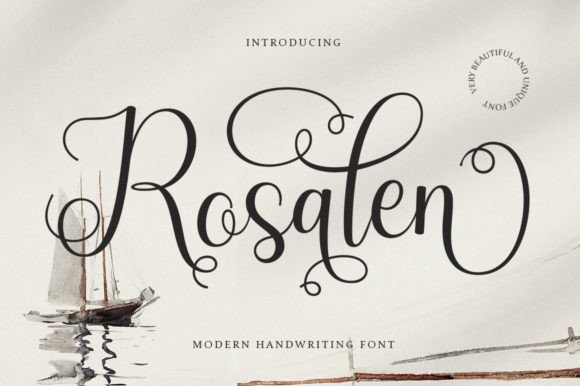
Feast your eyes on the mesmerizing Rosalen Script, a calligraphic masterpiece that exudes elegance and sophistication. Crafted with meticulous care and attention to detail, this script font is a true visual symphony that will transform your digital designs into works of art.
Immerse yourself in the world of Rosalen Script, where every letter dances across the page with a captivating rhythm and flow. Its graceful strokes and alluring curves evoke a sense of timeless beauty, making it the perfect choice for projects that demand a touch of luxury and refinement.
With Rosalen Script, you'll unlock a world of creative possibilities. Its versatility knows no bounds, allowing you to effortlessly elevate your designs, whether it's a heartfelt love letter, an enchanting wedding invitation, or a captivating social media post. Let your imagination soar as you explore the endless applications of this remarkable font.
Unleash the power of Rosalen Script and watch as your words take on a life of their own. Its enchanting characters possess the ability to captivate and mesmerize, leaving an unforgettable impression on your audience. Prepare to be amazed as your designs transform into captivating works of art that radiate beauty and sophistication.
Don't resist the allure of Rosalen Script any longer. Embark on a creative journey like no other and discover the boundless potential that lies within this exquisite font. Embrace the beauty of Rosalen Script and elevate your designs to new heights.